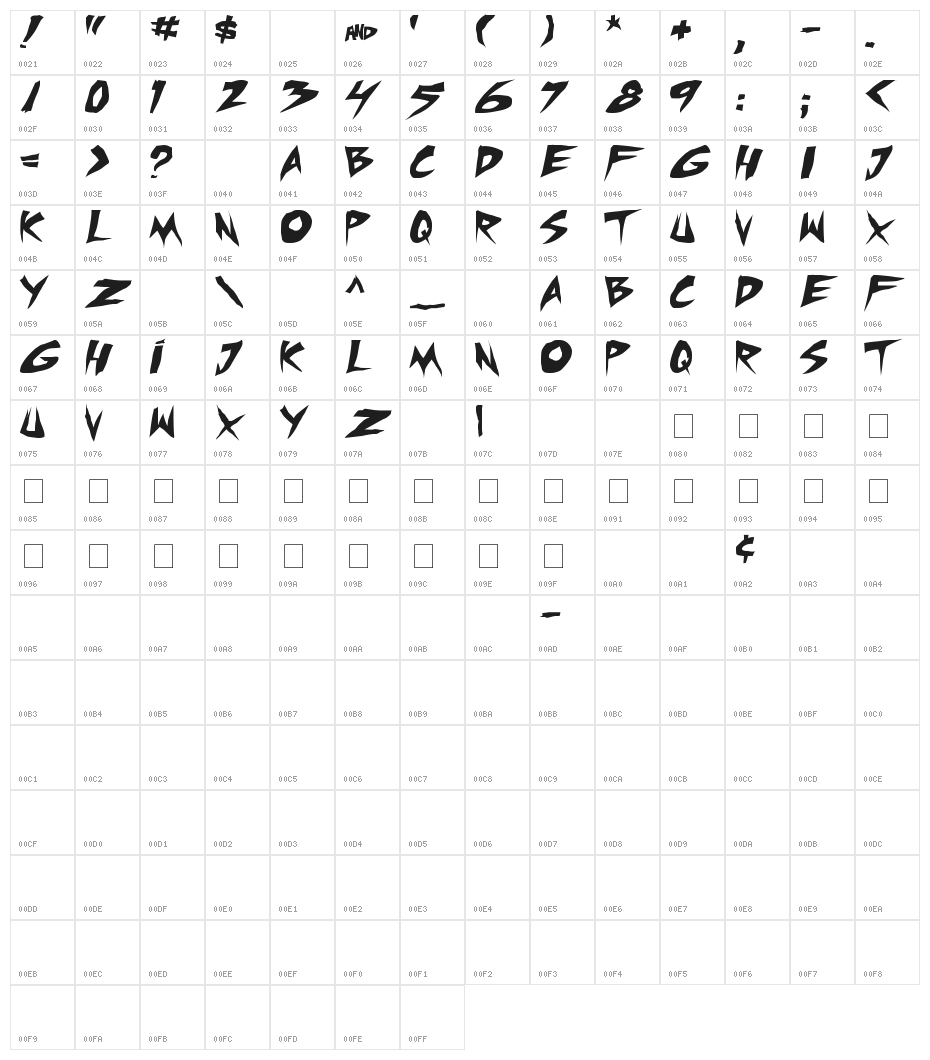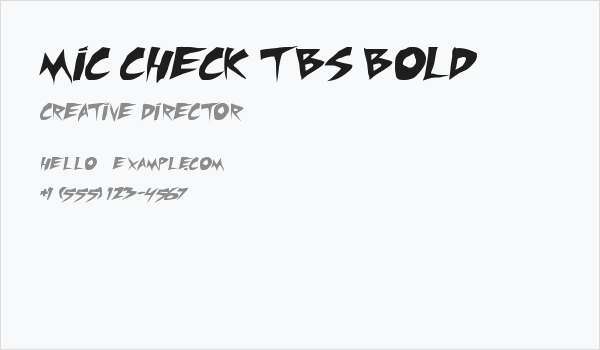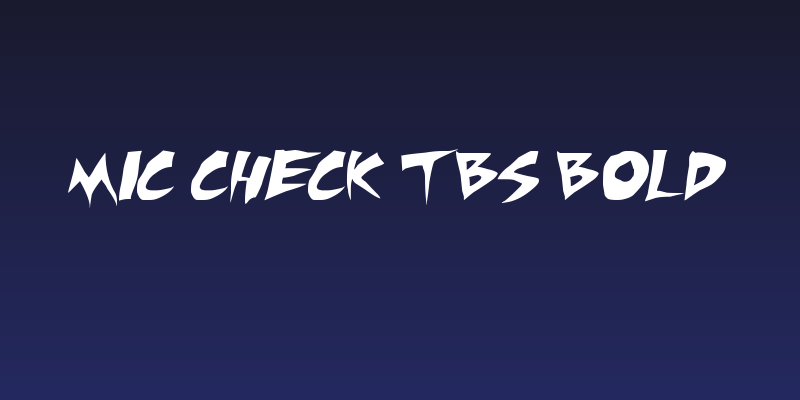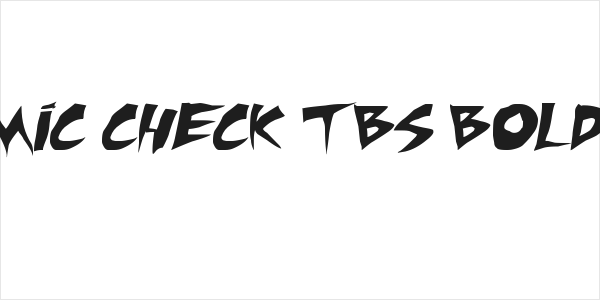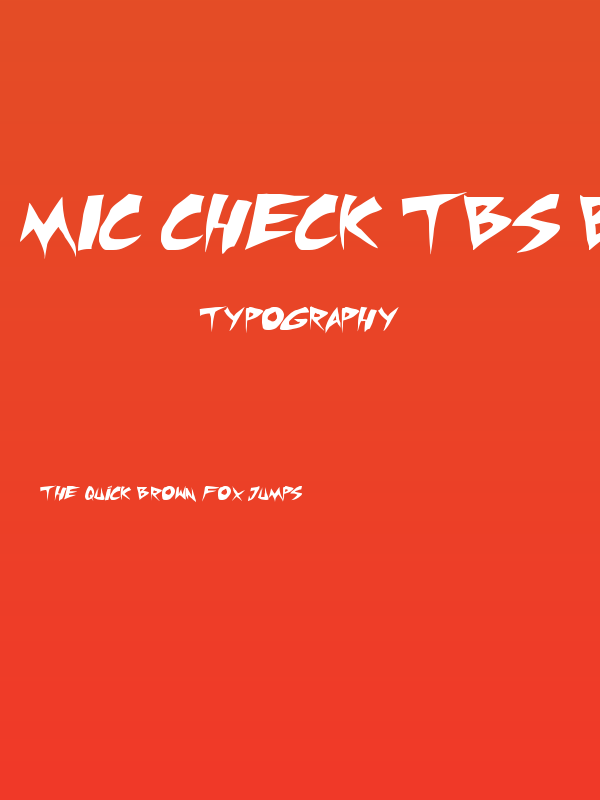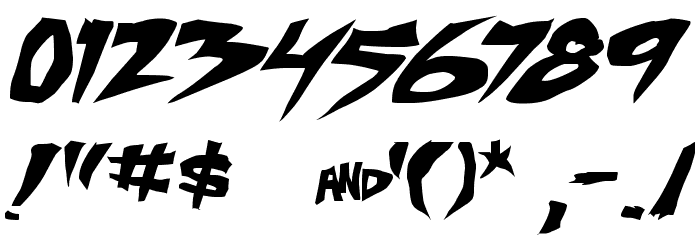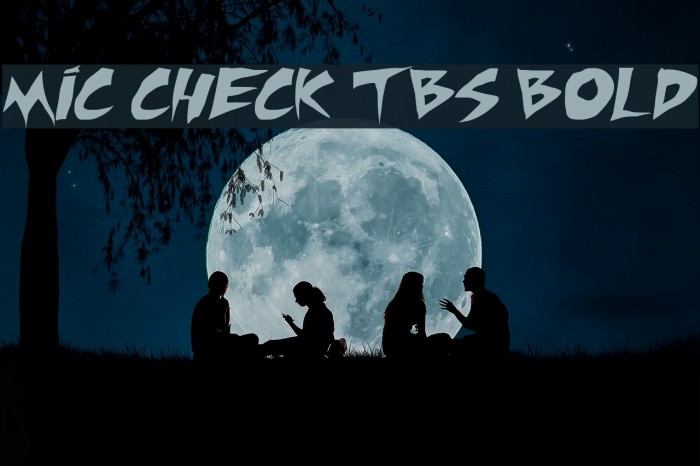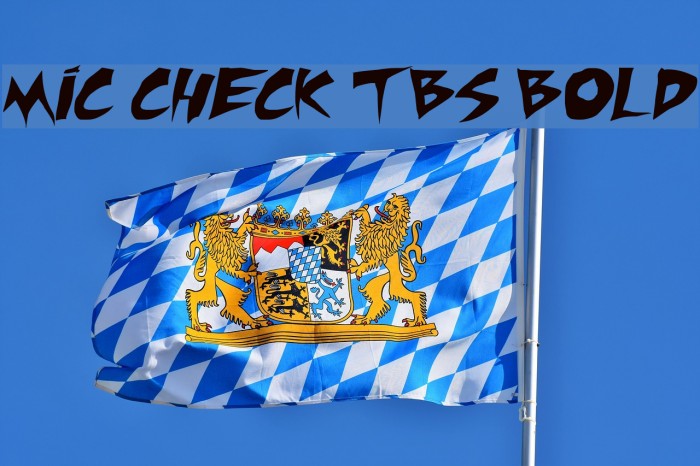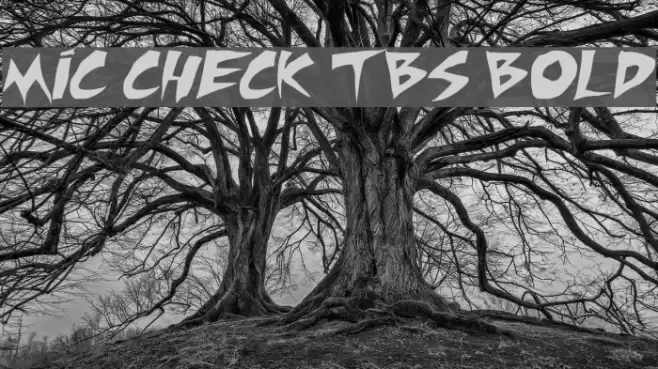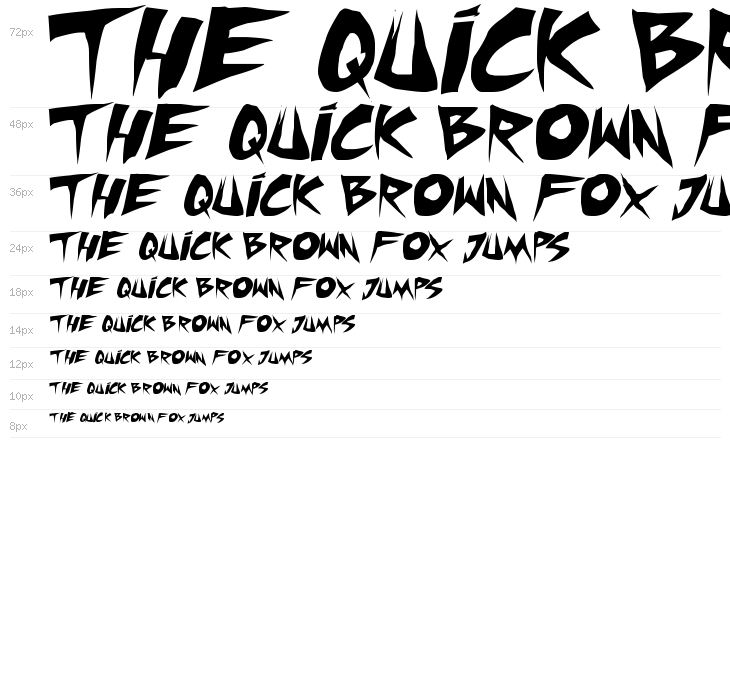
Mic Check TBS Bold Font
Mic Check TBS Bold Description
This font features a bold and aggressive style with sharp, angular edges and a dynamic, energetic appearance. The characters are heavily stylized, with exaggerated points and a sense of movement, making it ideal for attention-grabbing designs. The uppercase and lowercase letters maintain a consistent theme, while the numbers and special characters complement the overall aesthetic. The font's unique design is suitable for projects that require a strong visual impact.
| Overall Style | Modern, Energetic |
| Proposed Projects | Perfect for posters, album covers, video game titles, and branding that demands attention. |